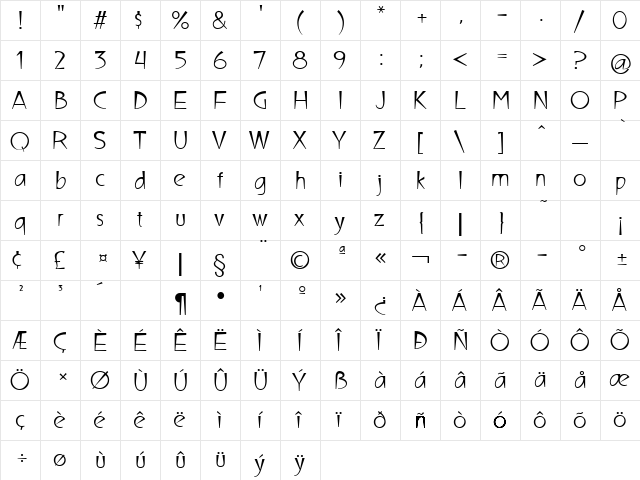
Ultima Campagnoli Regular
Design Context for Ultima Campagnoli Typeface
Ultima Campagnoli takes a measured approach to typography — its balanced proportions and neutral character make it a reliable workhorse for both digital and print work.